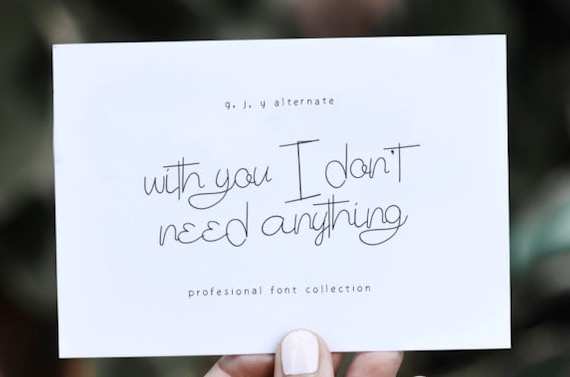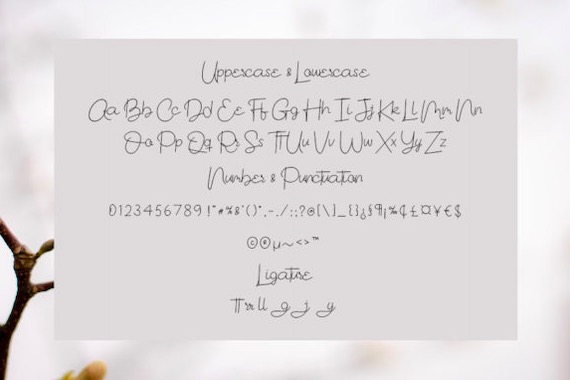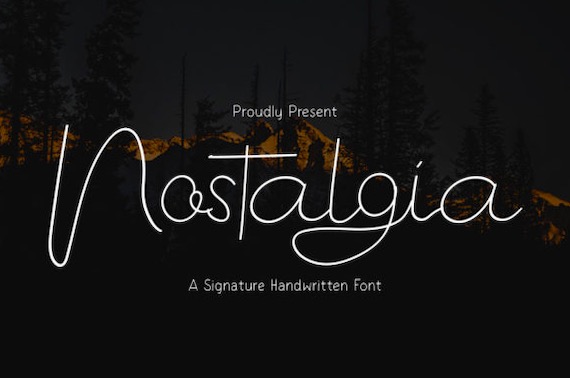
Nostalgia is a delicate & stylish handwritten script font that was created and shared by Creassion Studio. This handwritten font has a thin, neat, and smooth vibe and it will be a hit for any design that you want to add it to.
Nostalgia Handwritten Signature Font